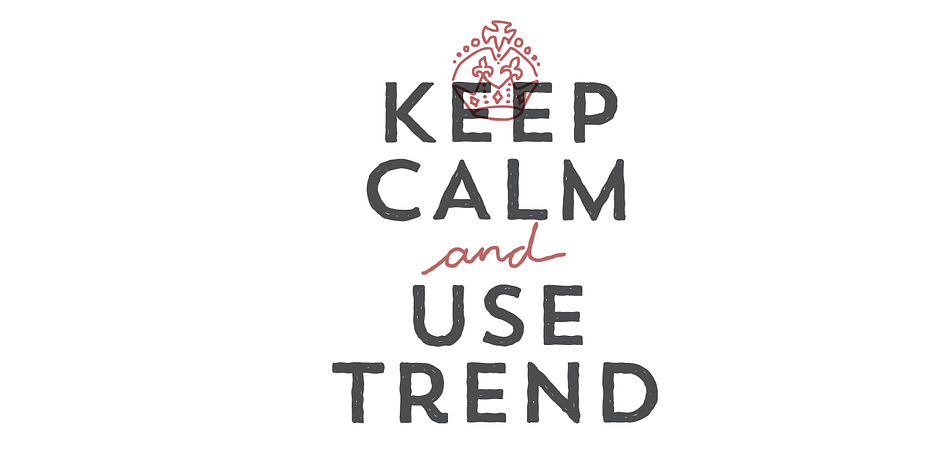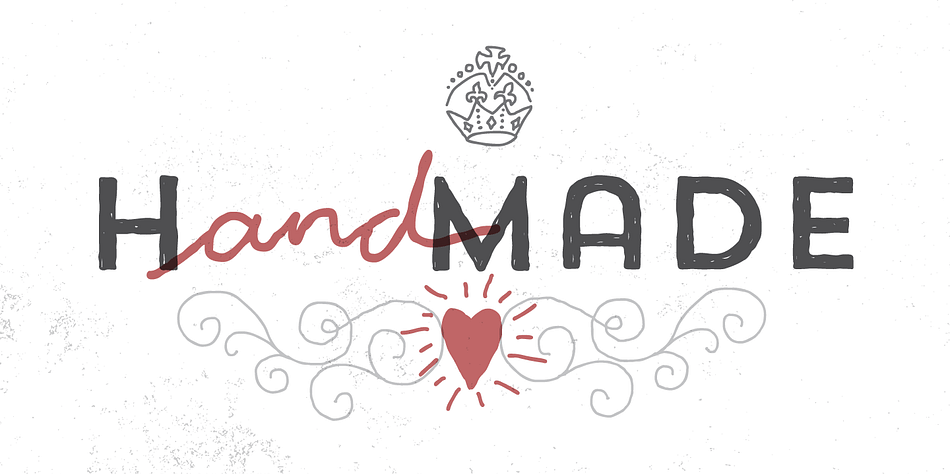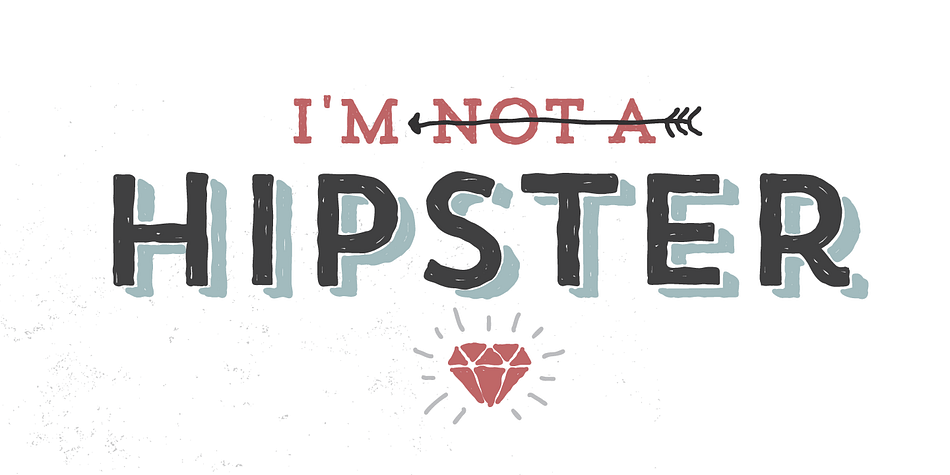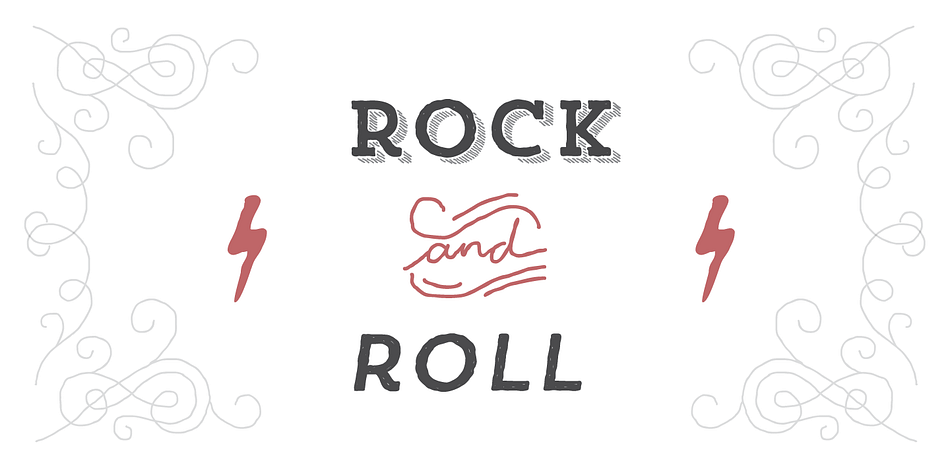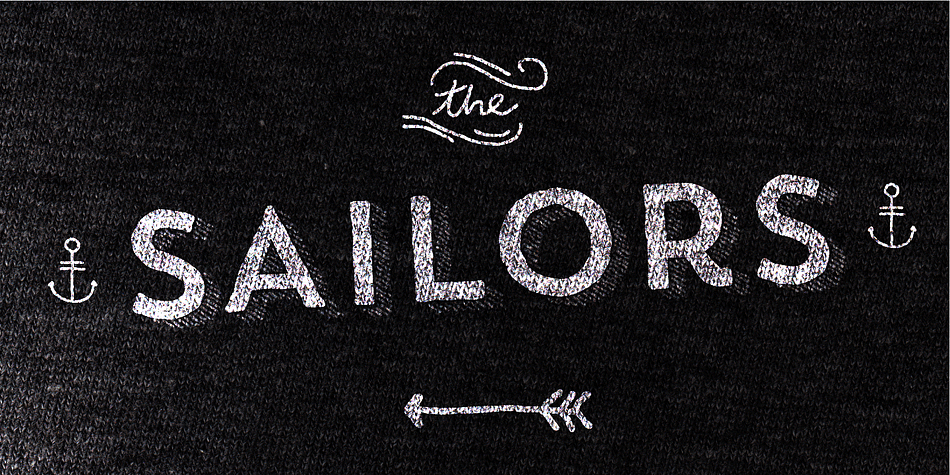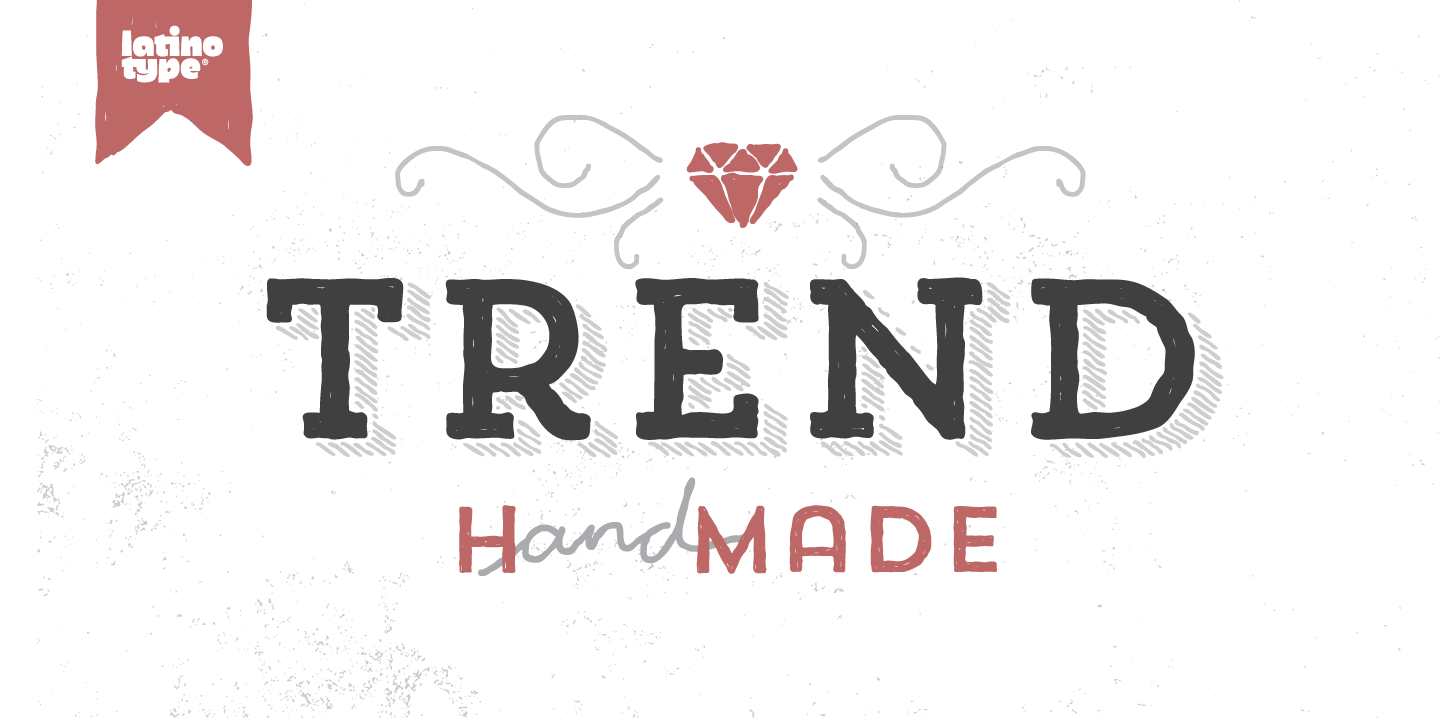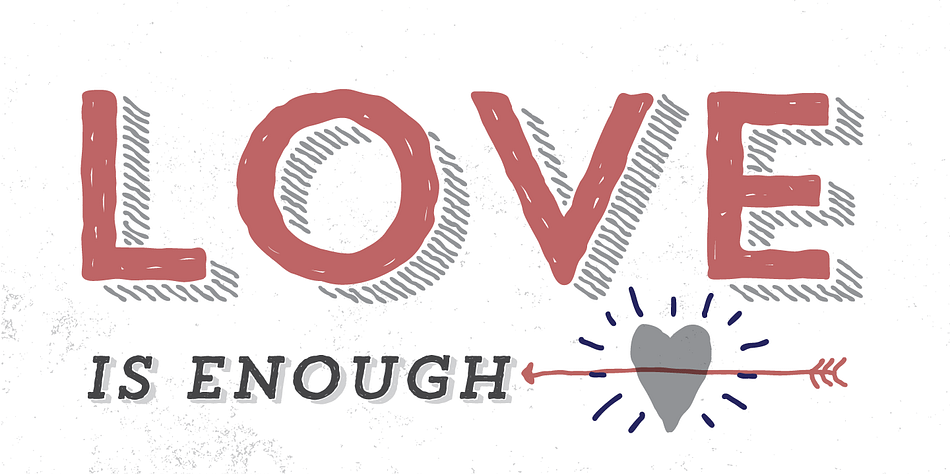
Trend Handmade is a multiple classification font family. This typeface has twenty-one styles and was published by Latinotype.
Trend Hand Made, Trend and Trend Rough is a font made of layers, taking as a basis a sans and a slab font.
It is the result of observation, search and study of the last global trends. Trend tries to capture the aesthetics of fashion or even fashion itself, integrating elements of a very popular and current trend.
Is a typeface designed to be used without need to add anything external to it, because it has all components required for this.
Trend is trending.